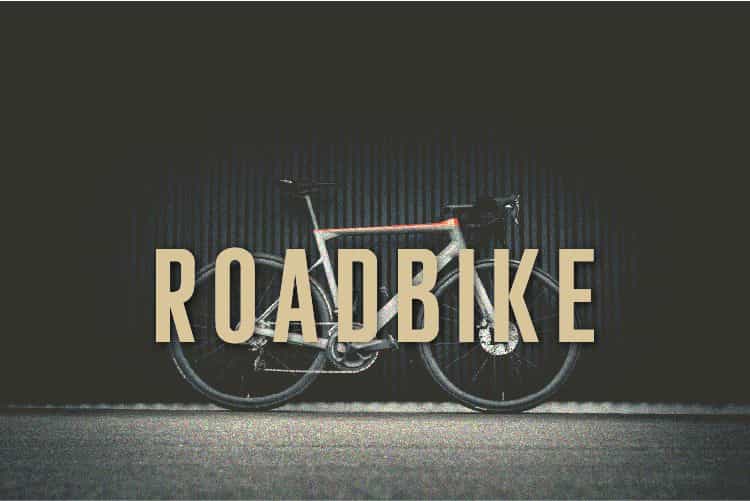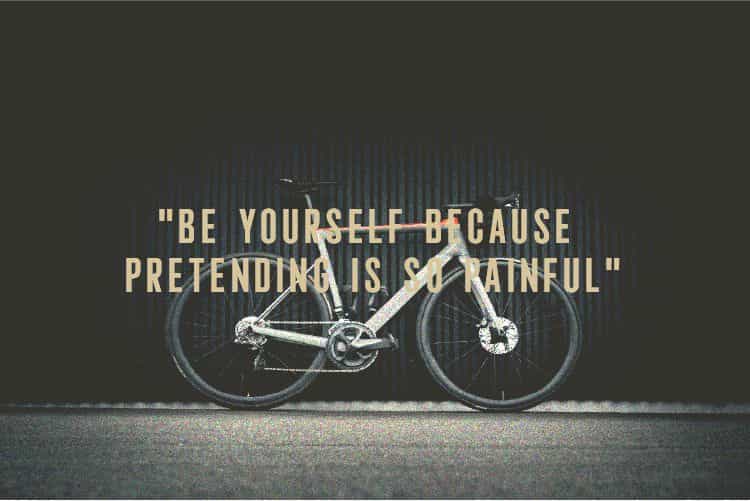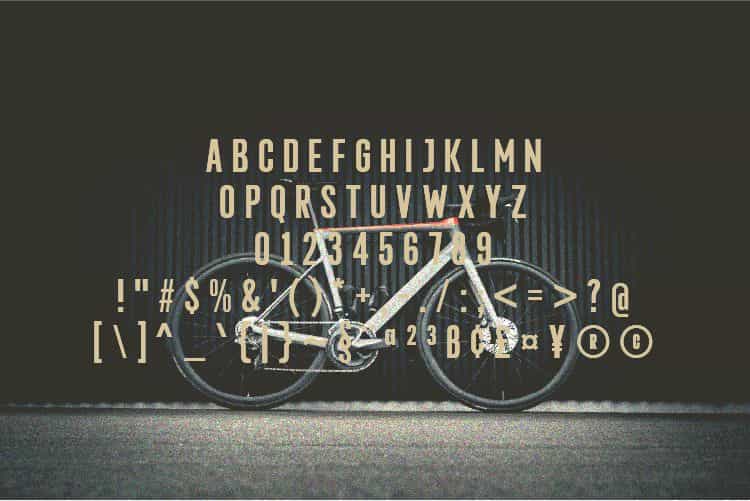
Roadbike has quickly become one of my go-to fonts. This full-page sans serif typeface is highly adaptable, perfect for use in virtually every scenario imaginable – branding logos websites as well as branding headings! With clean lines and an extra hint of contrast Versailles makes for the ideal typeface choice.